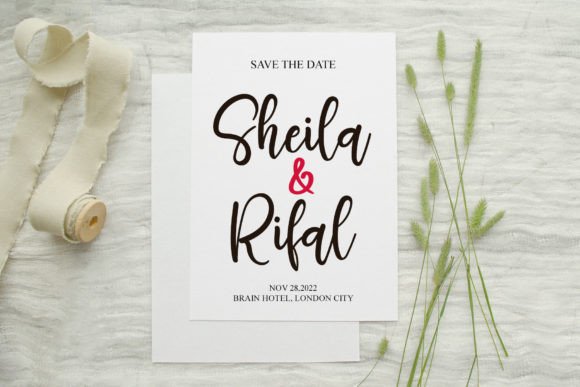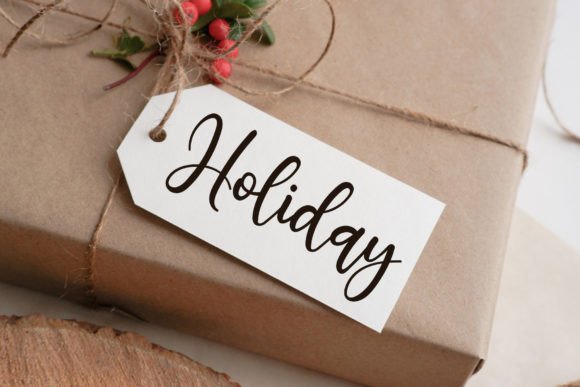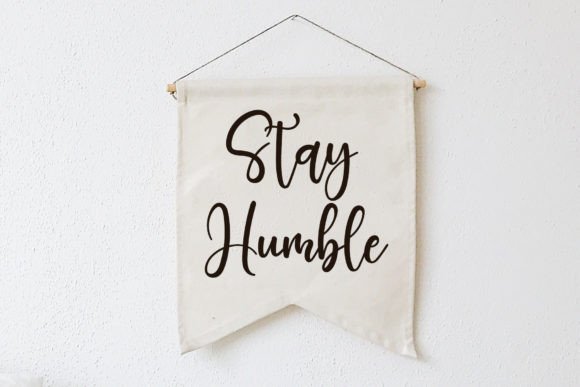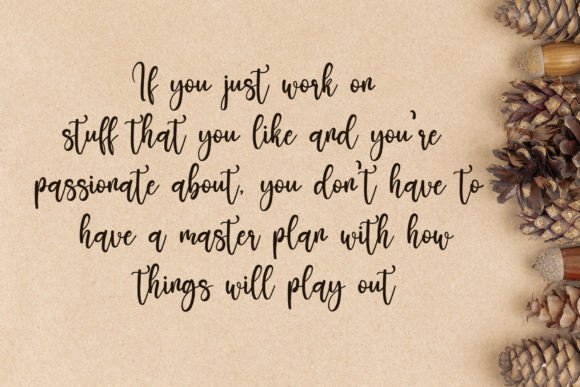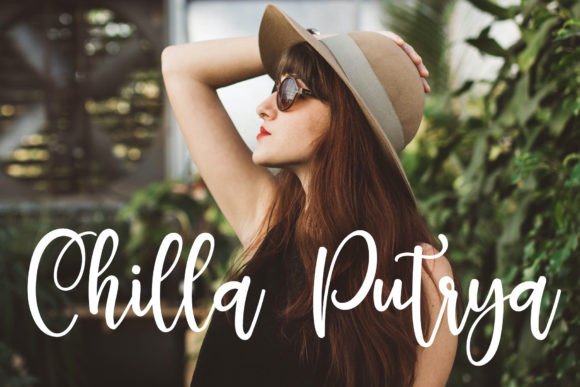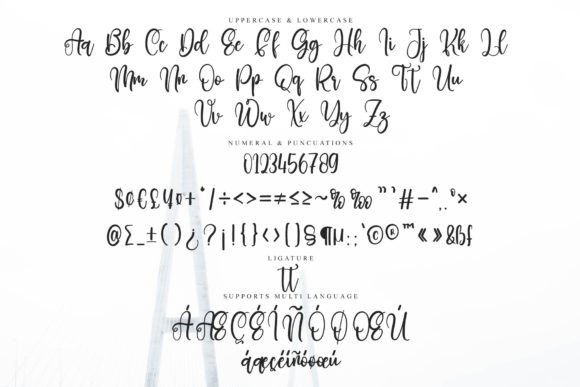
Cantique Font: Elevate Your Designs with Timeless Elegance
In the world of typography, a well-crafted font can make all the difference in elevating your designs from ordinary to extraordinary. Cantique Font is a stunning handwritten font that embodies the perfect blend of classic sophistication and modern flair. Inspired by the timeless beauty of traditional calligraphy, Cantique is designed to bring a touch of elegance and refinement to your projects.
The Essence of Cantique Font
Cantique Font is a stylish handwritten font that boasts a contemporary atmosphere and impeccable form. Its balanced and varied design makes it an ideal choice for a wide range of creative projects, from branding and advertising to packaging and digital media. With its roots in classic calligraphy, Cantique exudes a sense of sophistication and luxury, perfect for designers and crafters looking to add a touch of high-end style to their work.
Key Features of Cantique Font
- Handwritten with a personal touch: Cantique Font is crafted with a human touch, giving it a unique and organic feel that’s perfect for designs that require a personal and emotive approach.
- Contemporary atmosphere: Despite its classic inspiration, Cantique Font has a distinctly modern feel that’s perfect for designers looking to create fresh and innovative designs.
- Impeccable form: Every letter and stroke in Cantique Font is carefully crafted to ensure a high level of legibility and aesthetic appeal.
- Balanced and varied: Cantique Font features a range of characters and glyphs, allowing designers to create complex and visually appealing designs that hold the viewer’s attention.
Why Choose Cantique Font?
With so many fonts available to designers and crafters, it’s easy to get lost in a sea of typography. So why choose Cantique Font? Here are just a few compelling reasons:
- Timeless elegance: Cantique Font’s classic inspiration ensures that it will remain a stylish and relevant choice for years to come, even as design trends come and go.
- Versatility: Whether you’re working on a logo, brochure, or social media graphic, Cantique Font is the perfect choice for a wide range of creative projects.
- Easy to read: Despite its elegant and refined design, Cantique Font is highly legible, making it perfect for designs that require a clear and concise message.
Using Cantique Font in Your Designs
So how can you incorporate Cantique Font into your designs? Here are a few ideas to get you started:
- Branding and logos: Cantique Font’s elegant and refined design makes it perfect for logos and branding materials that require a touch of sophistication.
- Advertising and marketing: Whether you’re creating a print ad or social media graphic, Cantique Font is a great choice for designs that require a clear and concise message.
- Packaging and product design: Cantique Font’s classic inspiration and modern feel make it a great choice for packaging and product design projects that require a touch of elegance and refinement.
In conclusion, Cantique Font is a stylish and elegant handwritten font that’s perfect for designers and crafters looking to add a touch of timeless sophistication to their projects. With its classic inspiration, modern feel, and impeccable form, Cantique Font is the perfect choice for a wide range of creative projects. Whether you’re working on a logo, brochure, or social media graphic, Cantique Font is sure to elevate your designs and leave a lasting impression on your audience.